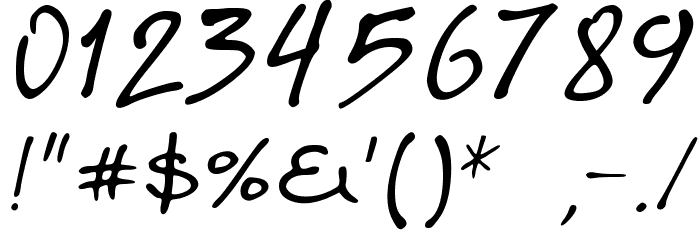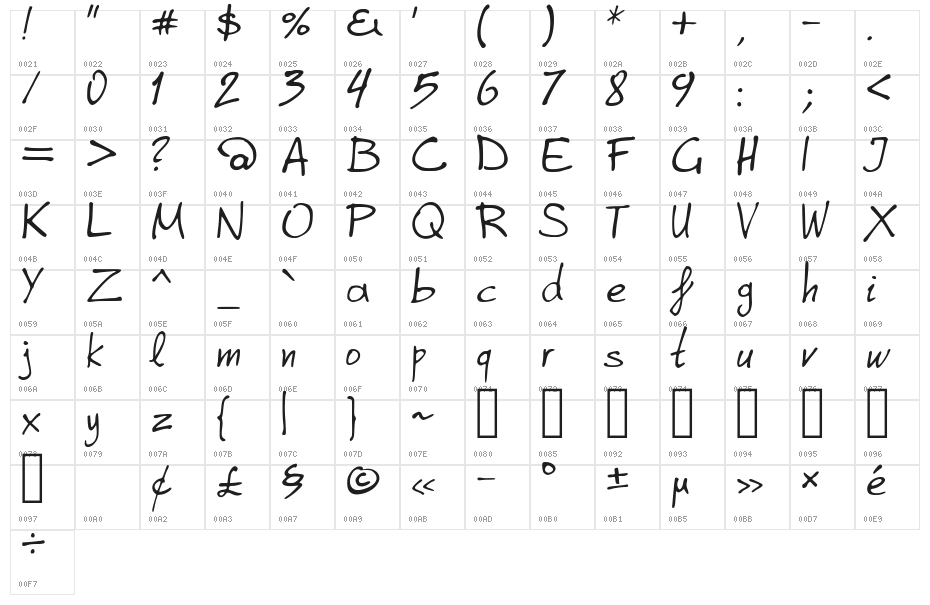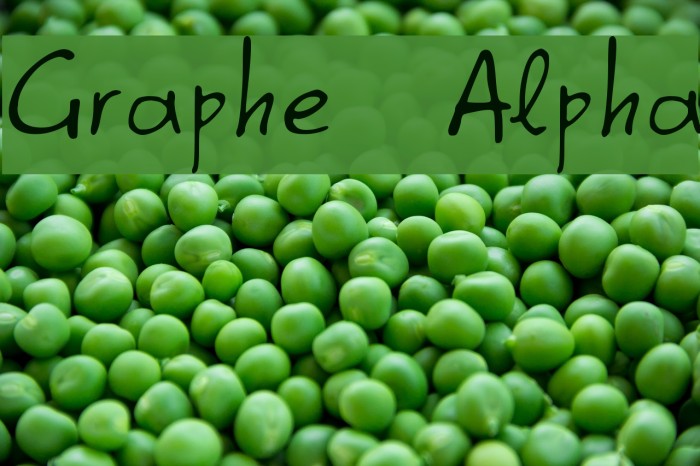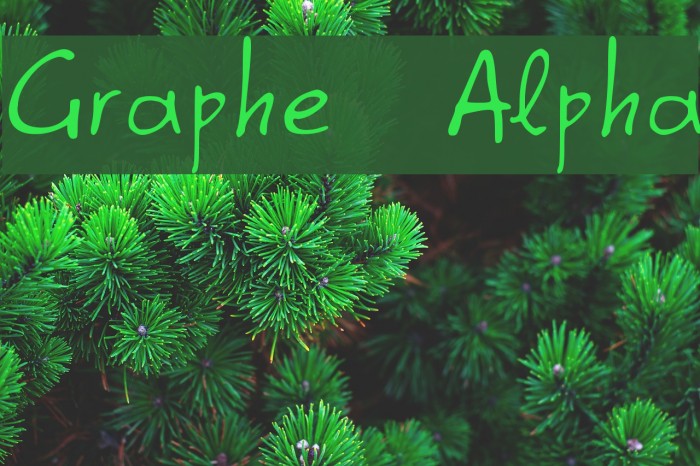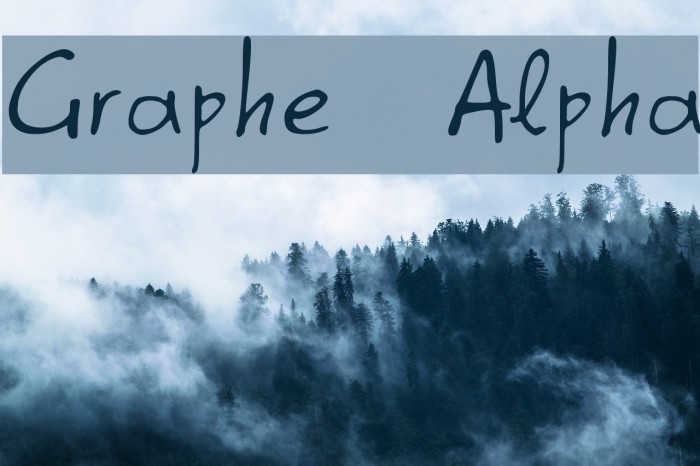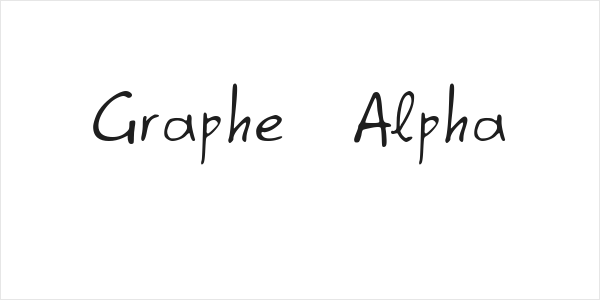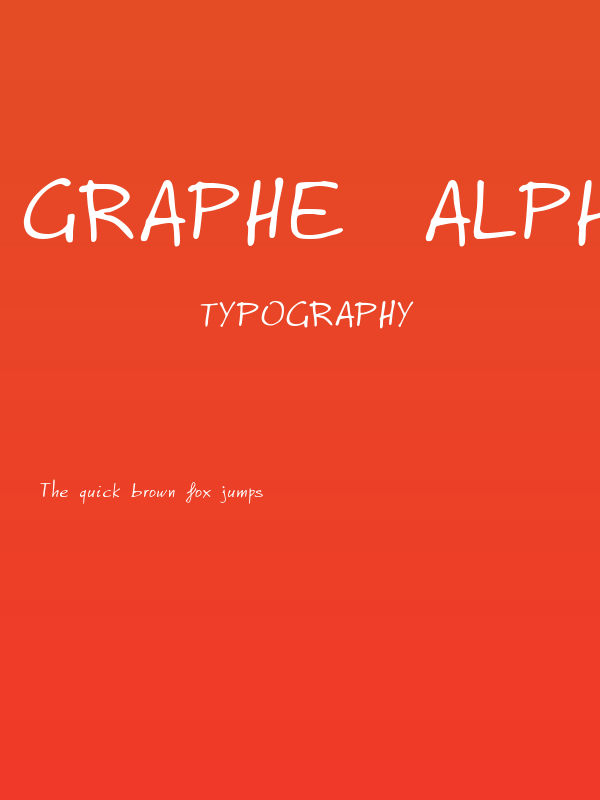
Graphe Alpha Font
Graphe Alpha Description
This font exhibits a lively and expressive handwritten style, characterized by its fluid and dynamic strokes. The uppercase letters are bold and slightly irregular, giving a sense of spontaneity and creativity. The lowercase letters maintain a consistent flow, with some characters featuring unique loops and curves that add to the font's charm. Numbers and special characters are crafted with the same playful energy, ensuring a cohesive look across all elements. The overall appearance is casual yet artistic, making it suitable for projects that require a personal touch.
| Overall Style | Casual, Artistic |
| Proposed Projects | Ideal for greeting cards, personal branding, creative posters, and informal invitations. |